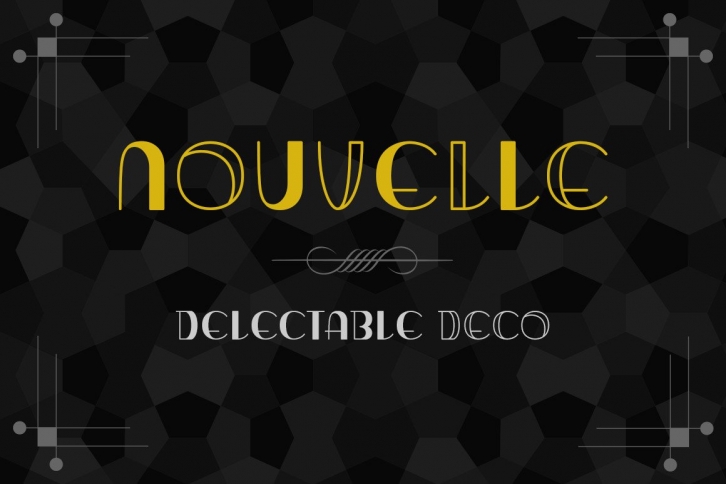
Nouvelle is an art deco inspired font family with a quirky flair.
It includes upper and lowercase letters and all the usual numbers and symbols.
The Nouvelle typeface includes two options: regular and outline, and comes in .TTF TrueType format for maximum compatibility.